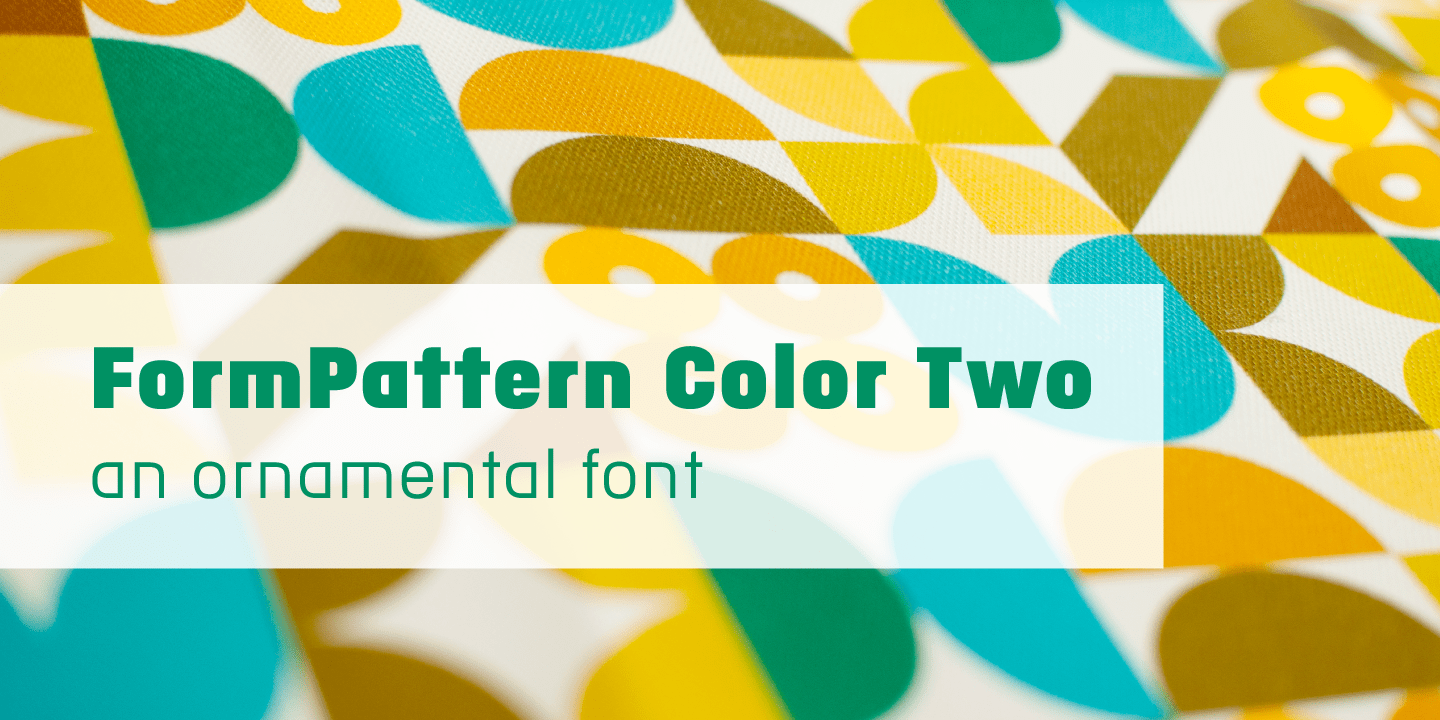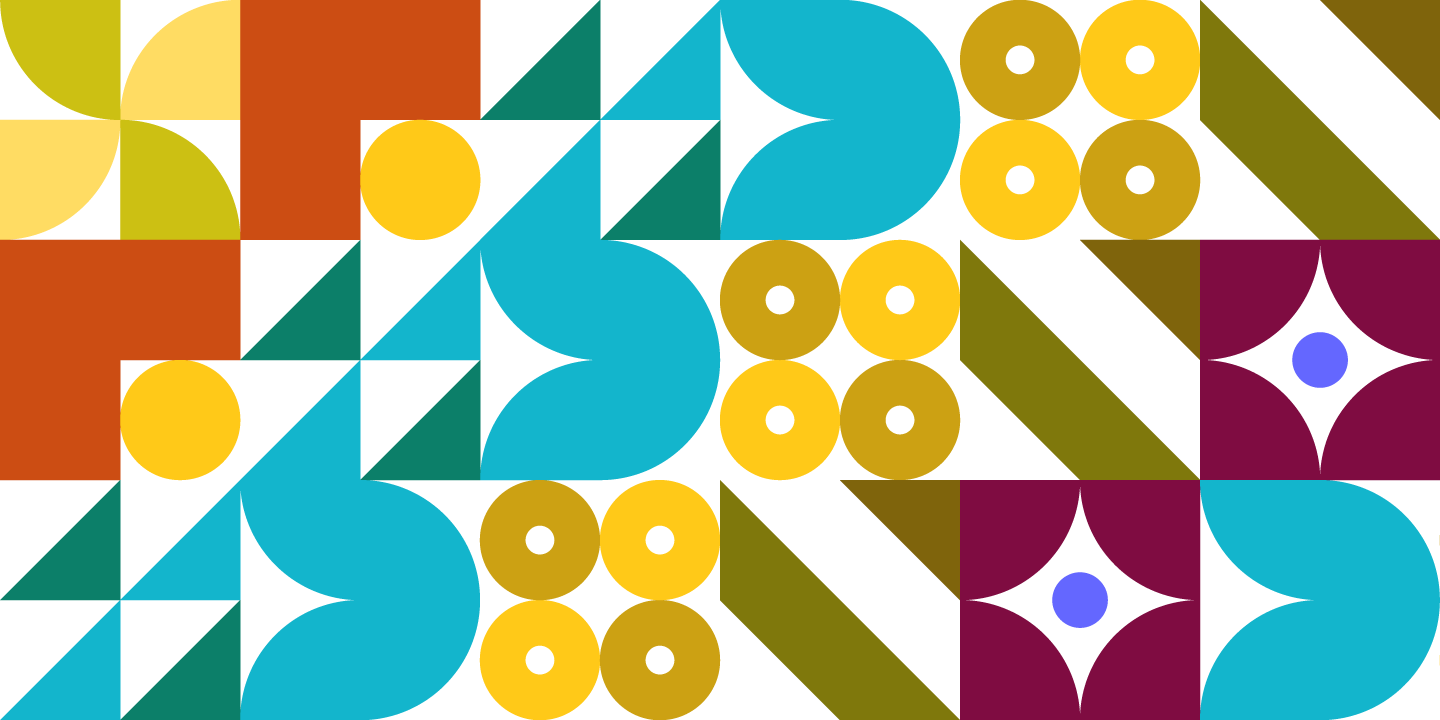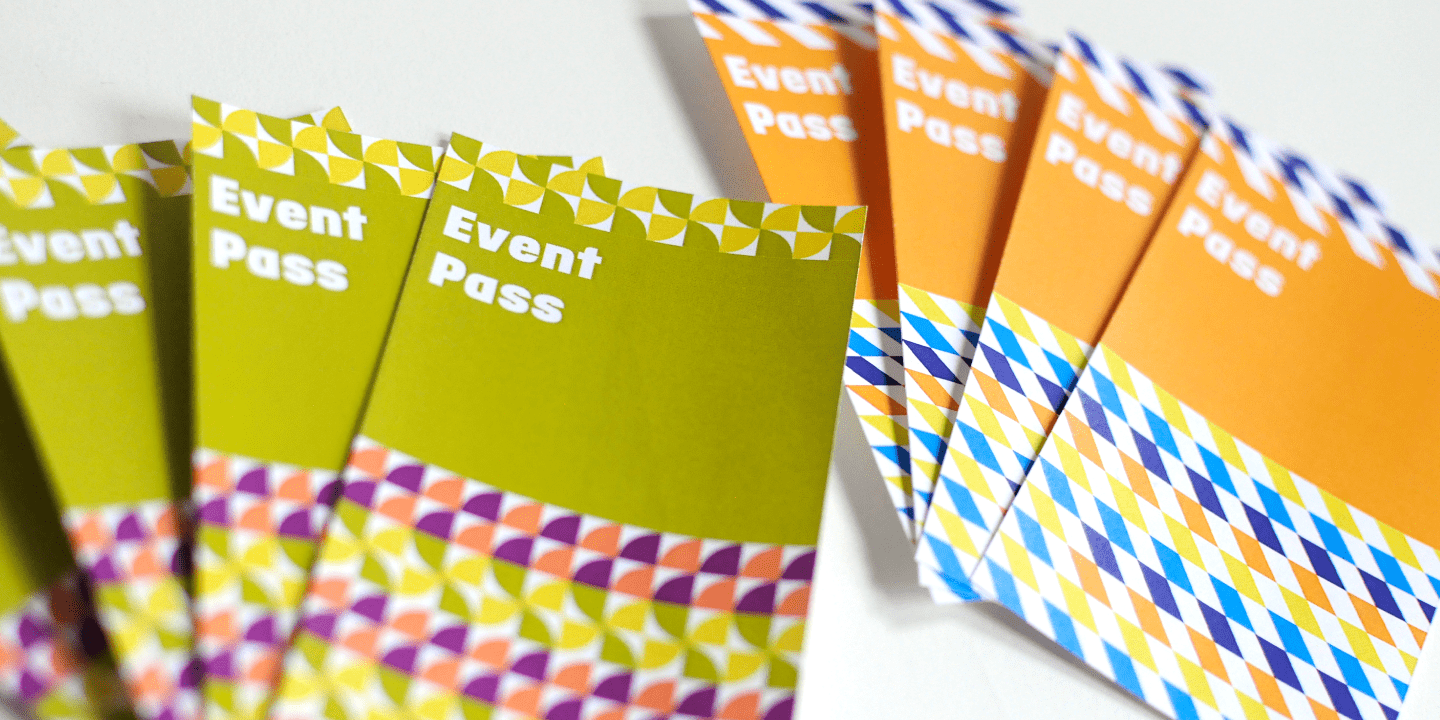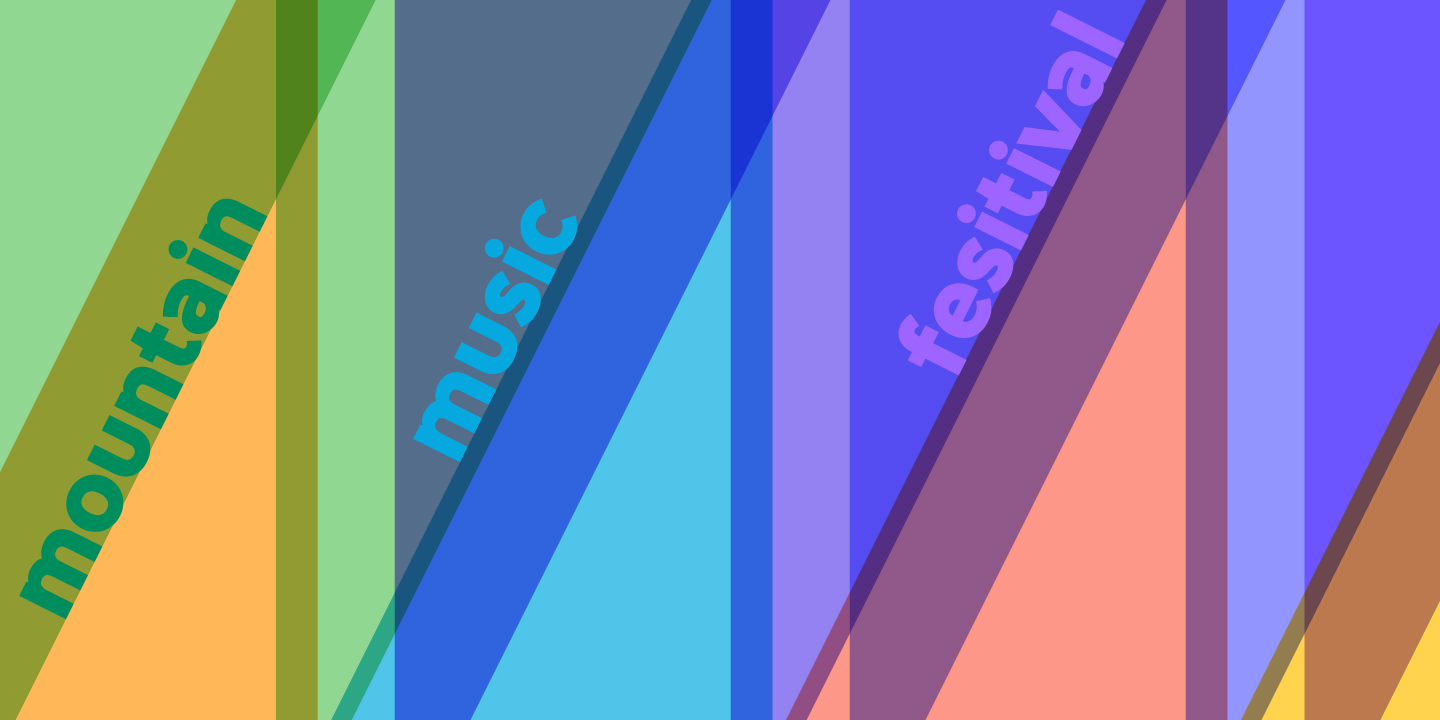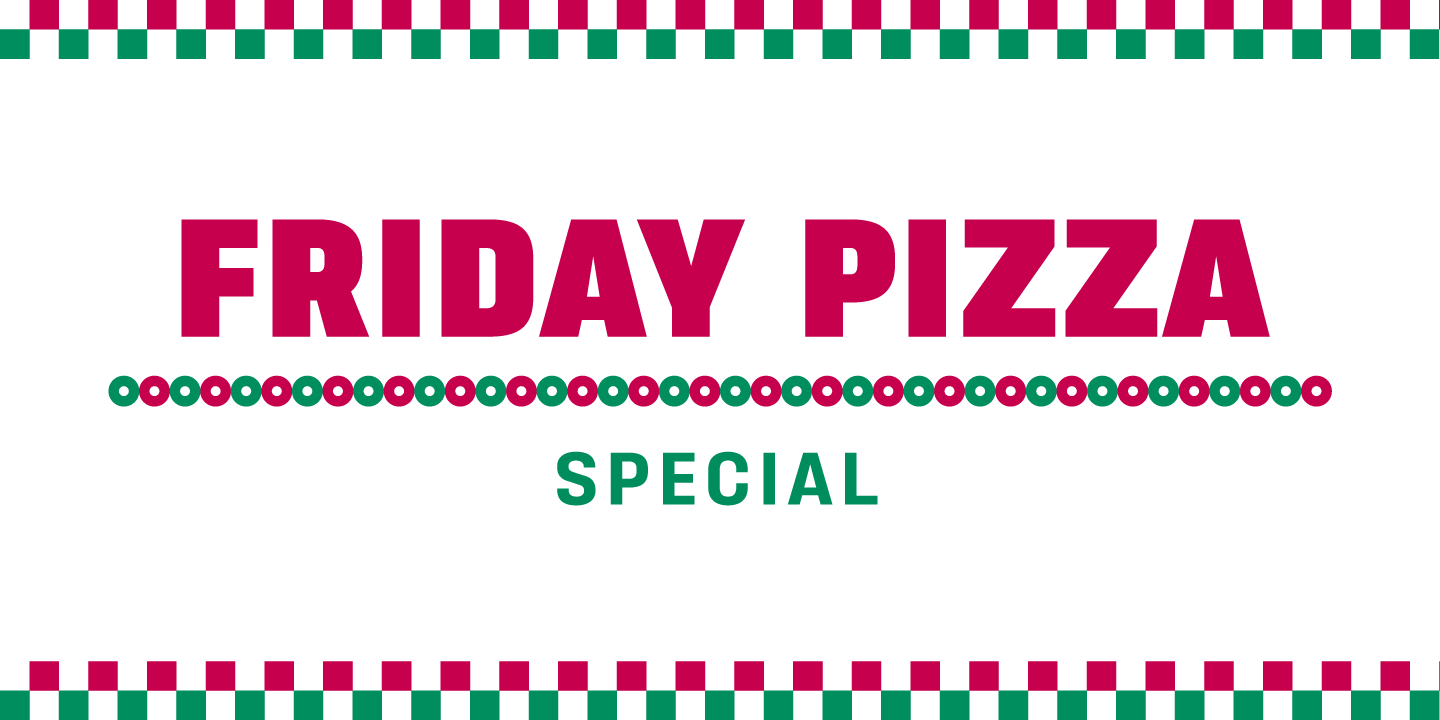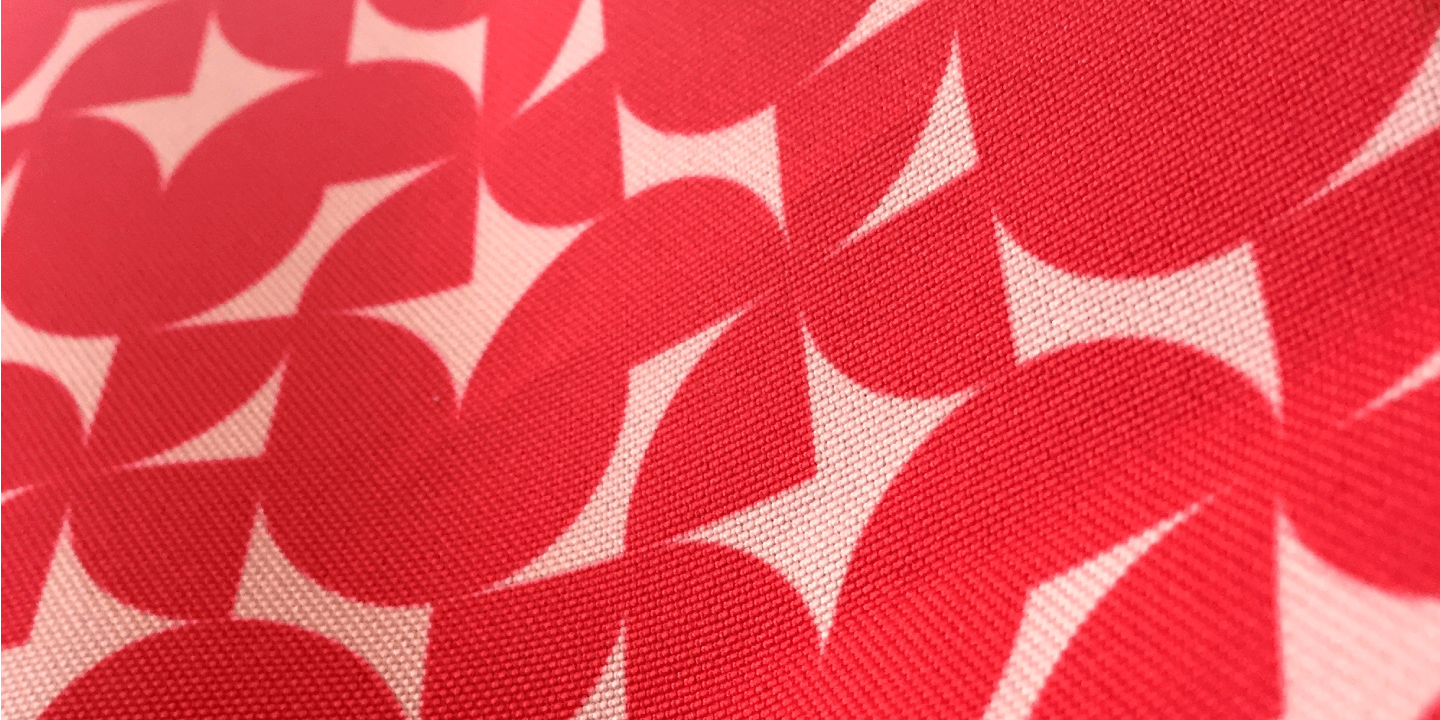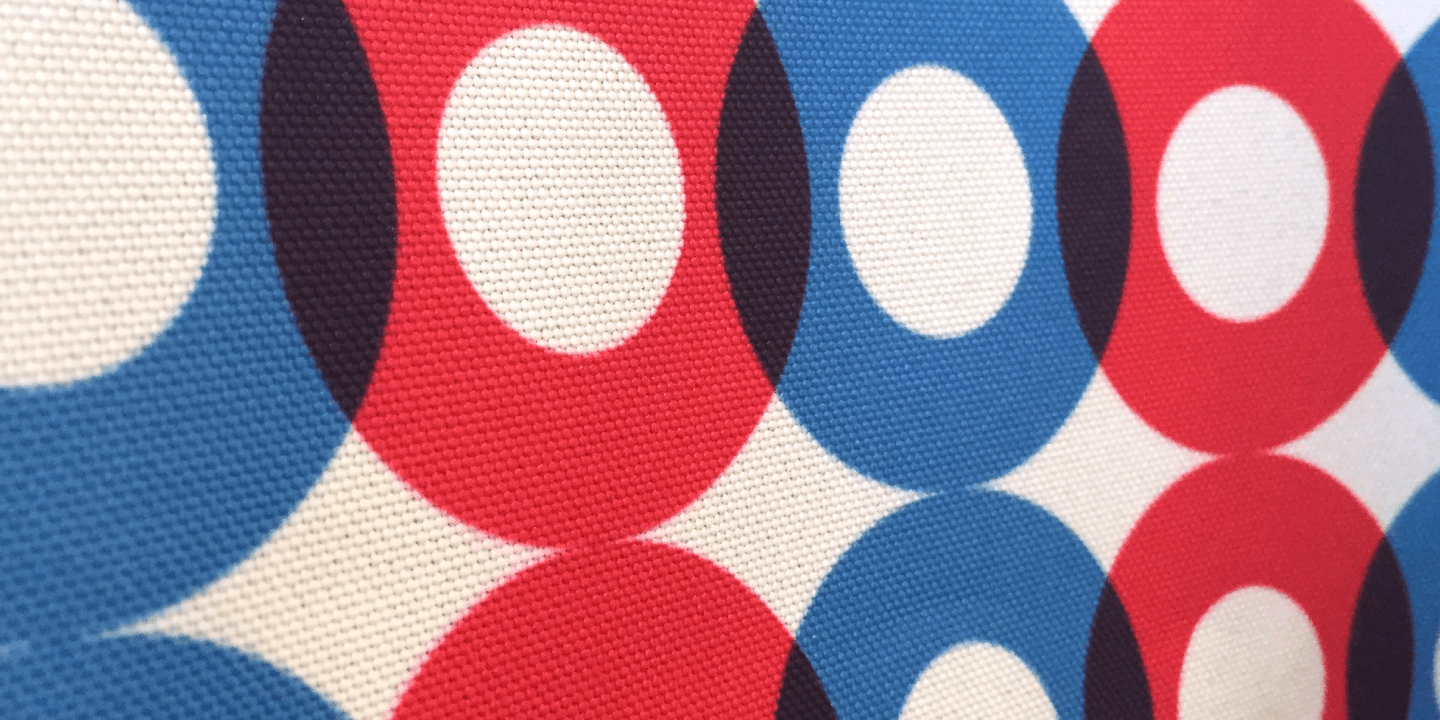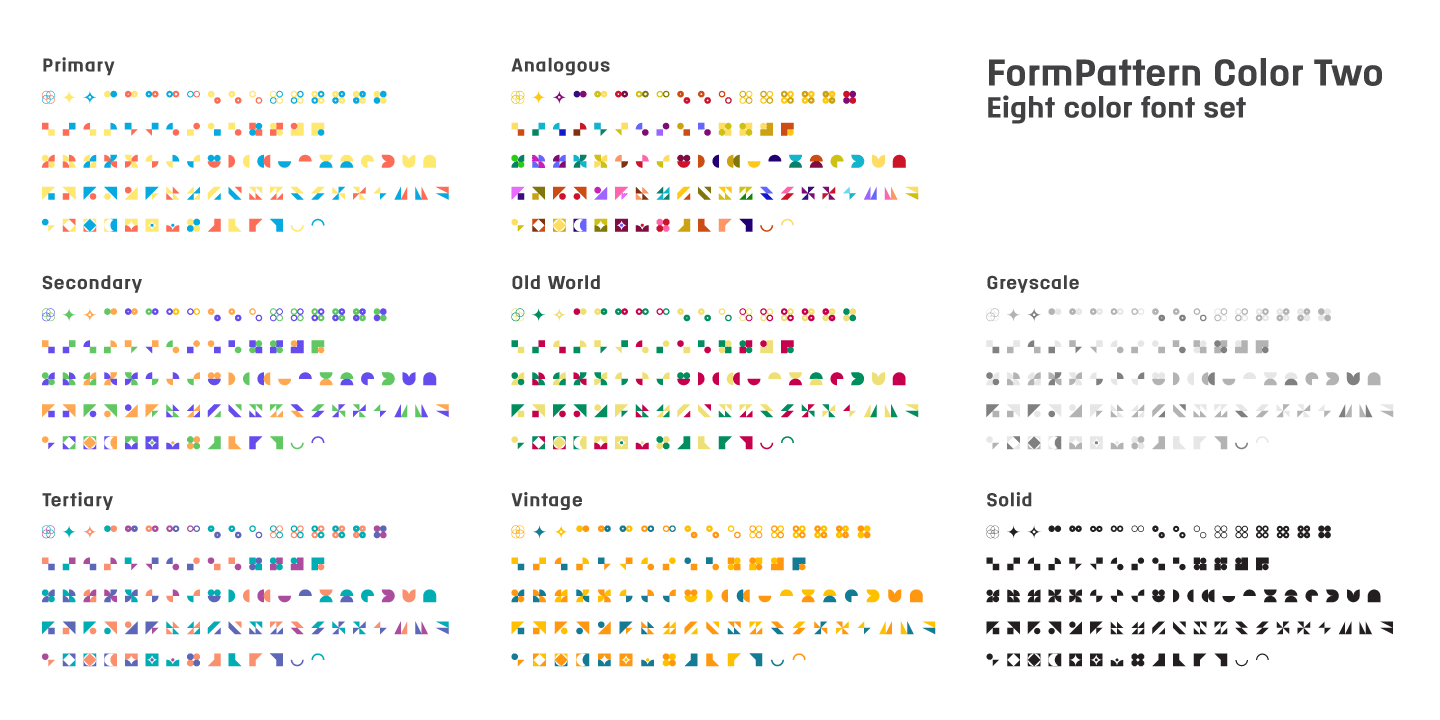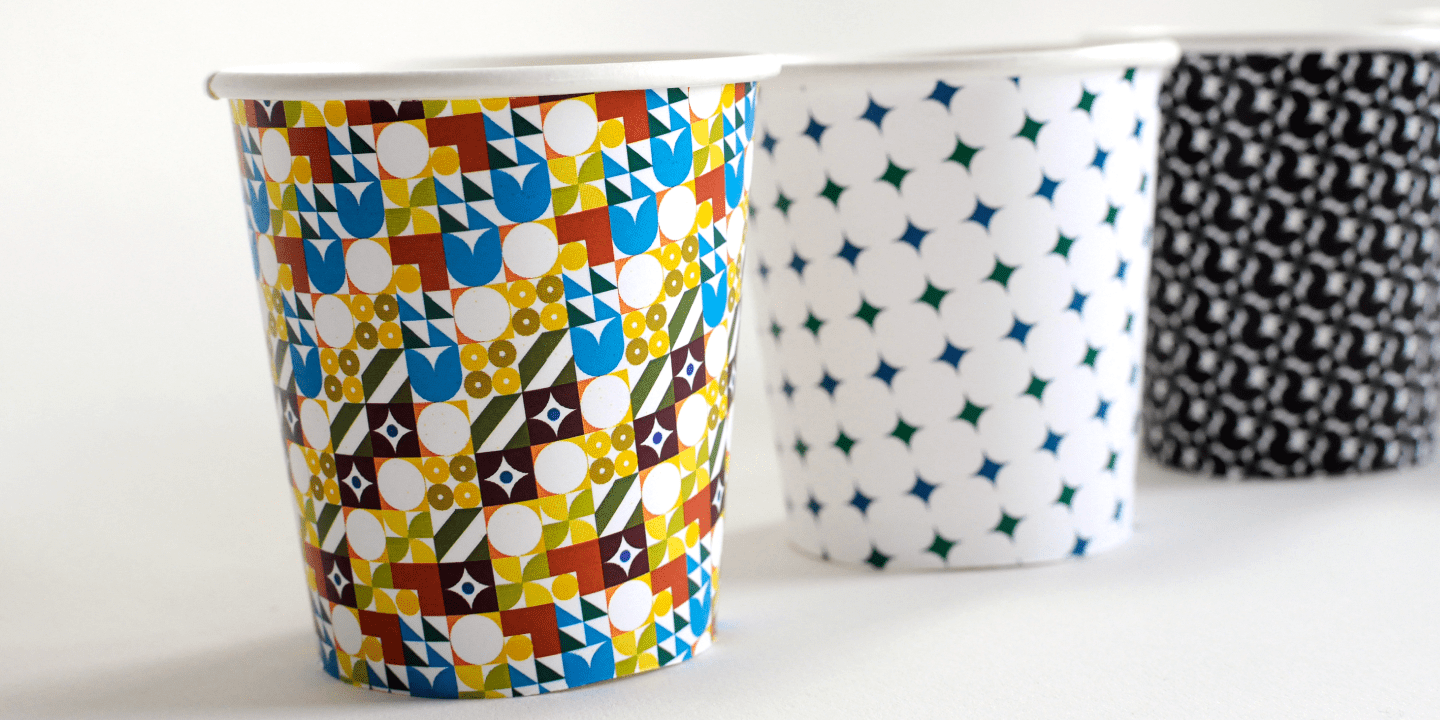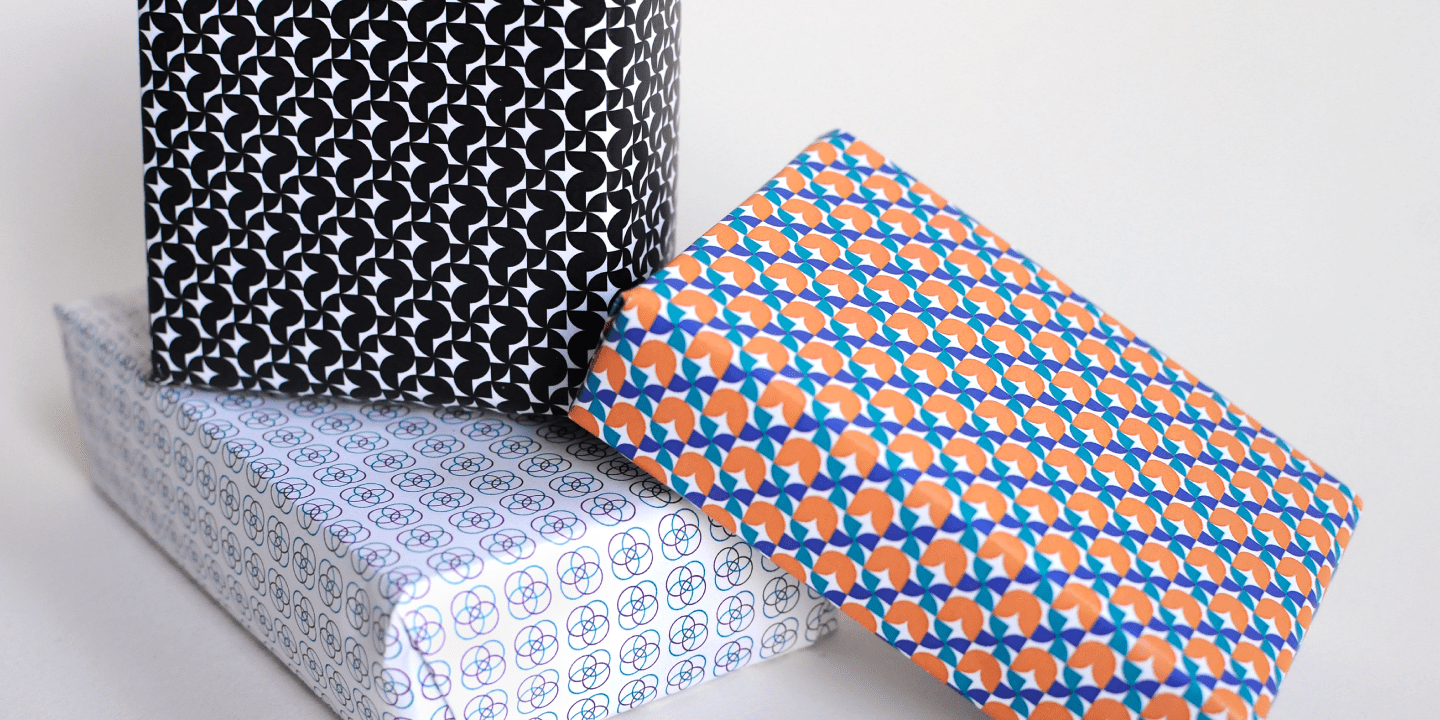
FormPattern Color Two
FormPattern Color Two is an ornamental font for creating borders, frames, lines, and patterns. It is made up of a versatile set of interconnectable shapes that can flow together to make lines, borders, and patterns. Try different letter spacing to connect the forms into a continuous pattern or to space them apart. Explore leading (line spacing) to create large areas of pattern. Work with layering and opacity to discover the color-mixing potential of this font. Web designers can use FormPattern Color to make unique horizontal rules.